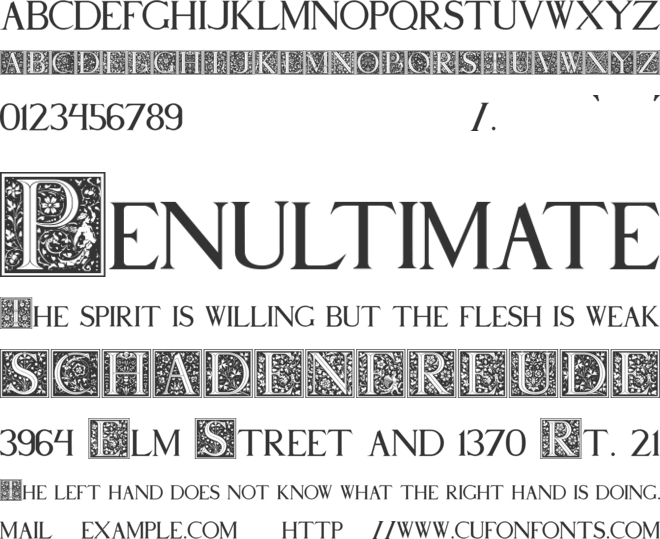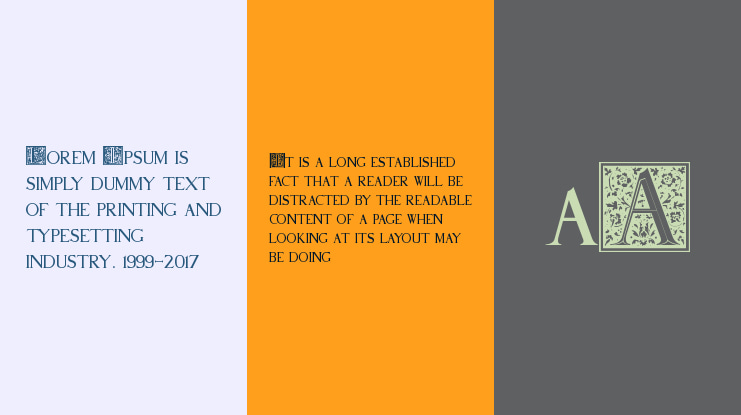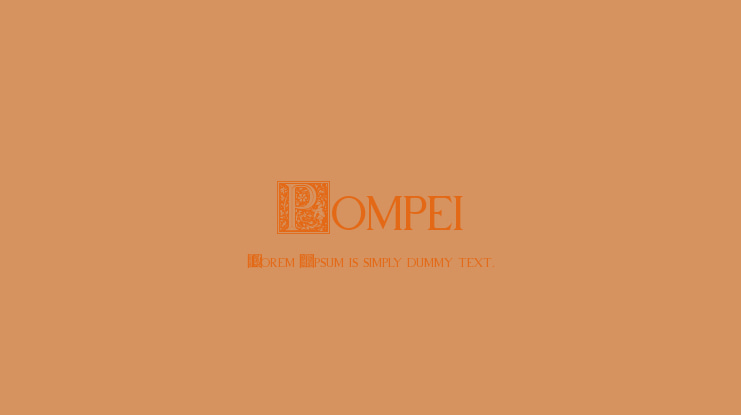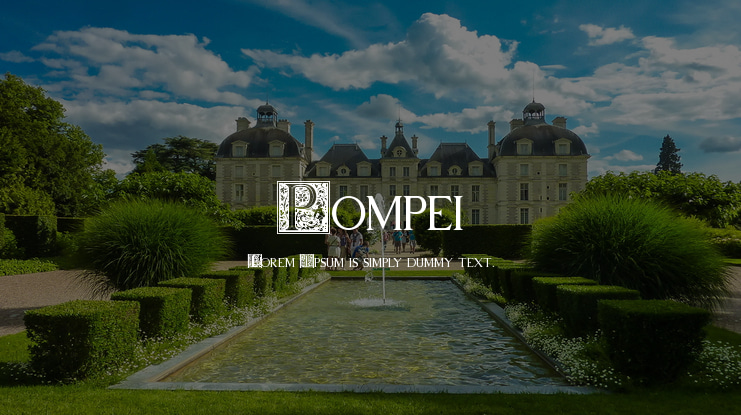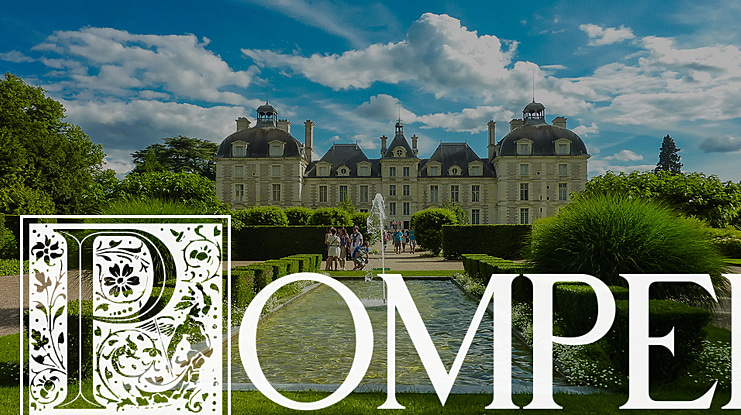
Pompei Font
Yves Michel
Another font inspired by one seen in a book on typographic ornaments. The book: TYPO ORNAMENTY, published by Milan Kopřiva in 1991. PLUTO Publishers Prague. The font was scanned, reworked and the missing letters have been created as welle as the lower case letters, figures and diacritics. La police a été scannée et travaillée, les lettres manquantes créées ainsi que les minuscules, les chiffres et les accents.